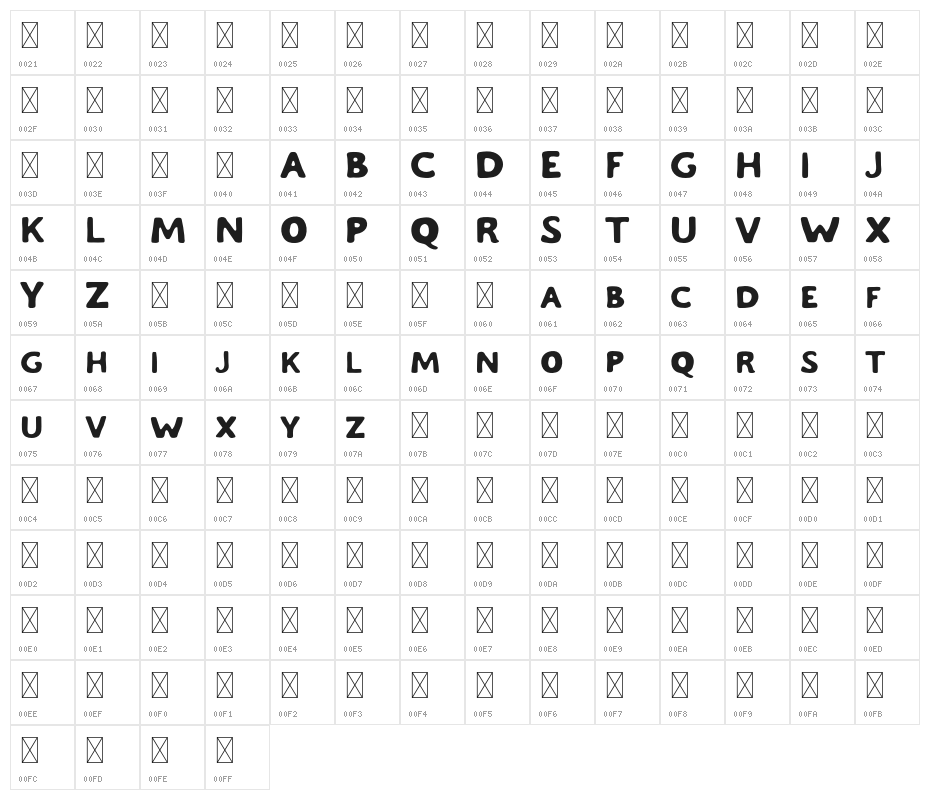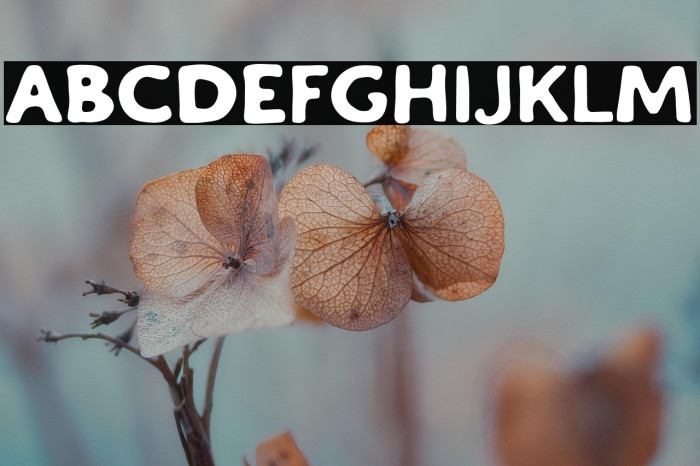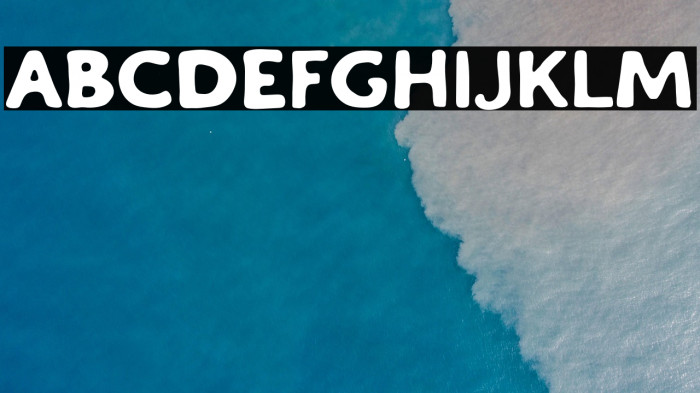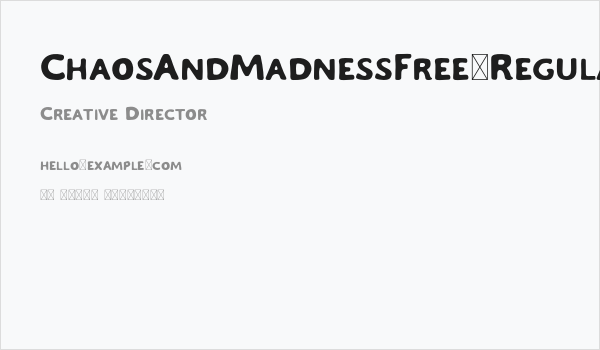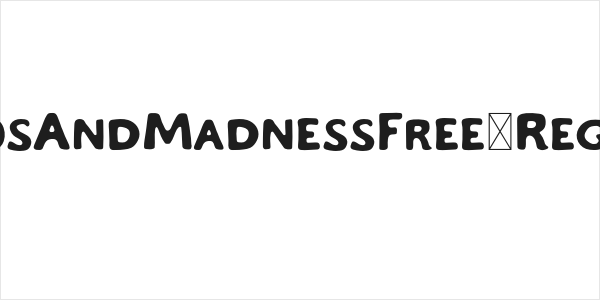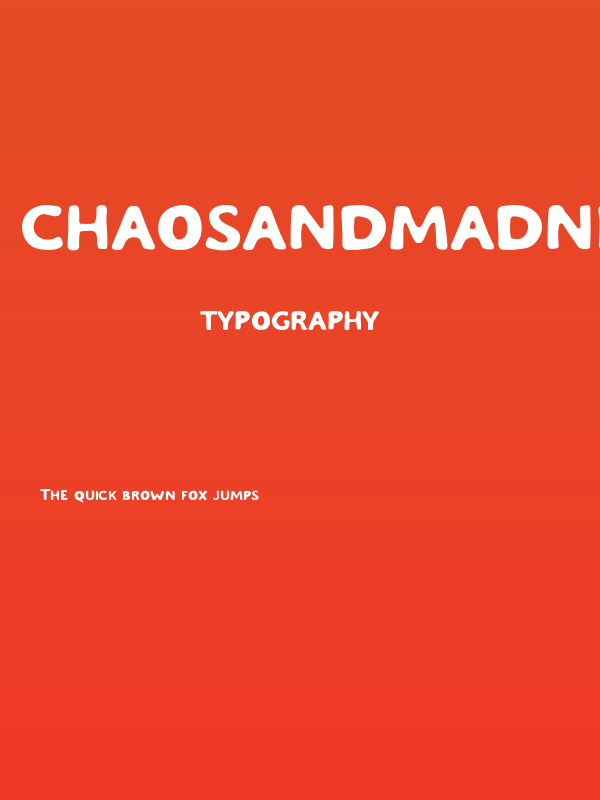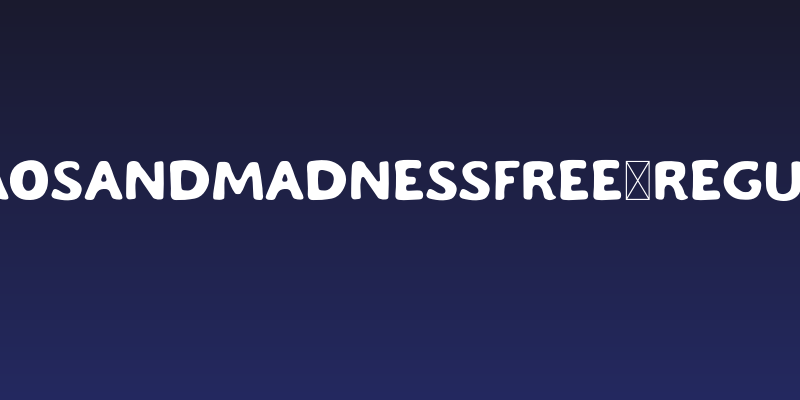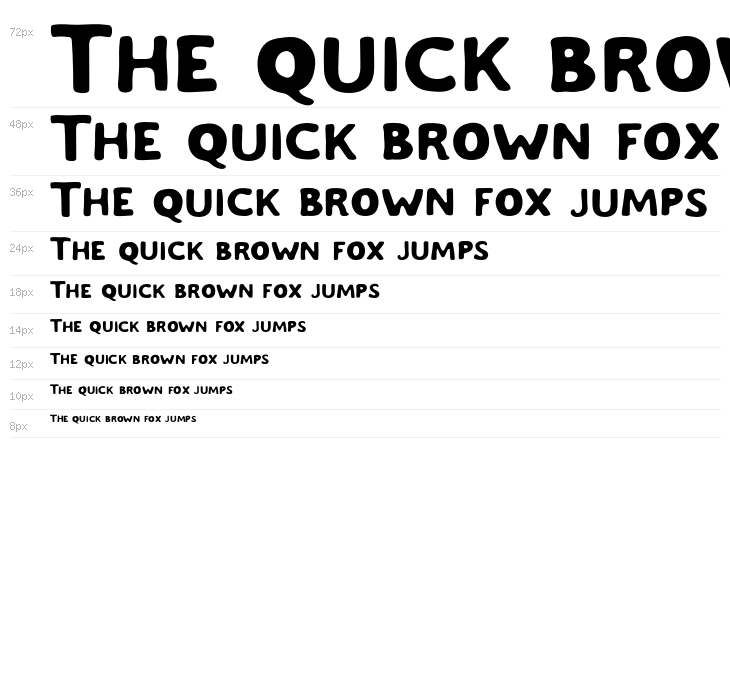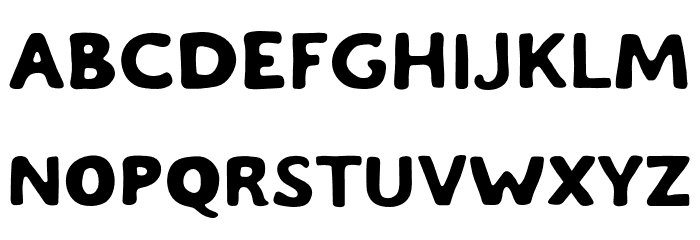
ChaosAndMadnessFree-Regular Font
ChaosAndMadnessFree-Regular Description
This font features a playful and bold design with rounded edges and a slightly irregular shape, giving it a hand-drawn appearance. The uppercase letters are prominent and maintain a consistent weight throughout, while the absence of lowercase letters and numbers suggests a focus on decorative use. The characters are evenly spaced, contributing to a balanced and cohesive look. Its unique style makes it suitable for projects that require a touch of whimsy and creativity. The font's simplicity and boldness make it easily readable, even from a distance.
| Overall Style | Playful, Creative |
| Proposed Projects | Ideal for children's book covers, playful branding, posters, and creative design projects. |